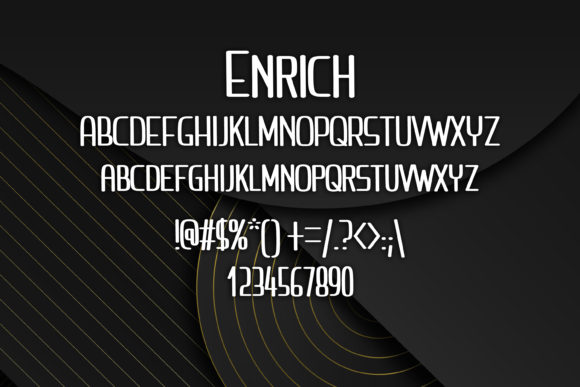
Introduction to Enrich Font
Enrich is a bold and neat display font.
Add this freshly shaped font to each of your futuristic ideas and notice how they come alive .
Key Features of Enrich Font